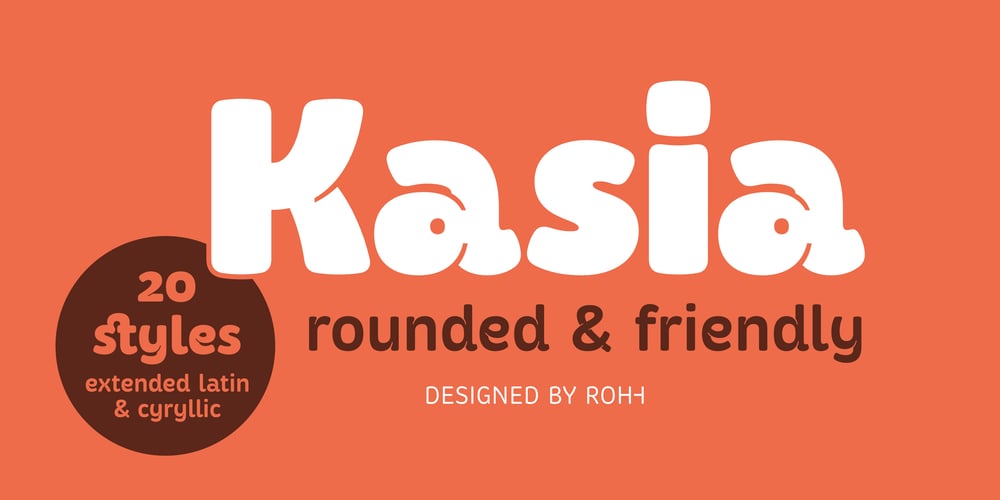
Kasia Font Family was designed by Roch Modrzejewski and published by ROHH. Kasia contains 20 styles and family package options. Kasia™ is a unique contemporary sans serif family, full of character and originality. It’s soft and rounded shapes give it warm, friendly, playful and dynamic feel. Special ink traps serve as ornamental details in bigger sizes, making Kasia™ a wonderful display font family. In small sizes, Kasia™ is very clean and legible. Its proportions and optimized kerning make it a versatile, friendly and organic text family, that features broad variety of OpenType features. Thanks to its various advantages Kasia™ is a great choice for all kinds of design work, both print and on-screen. It is a great choice for branding, logo design and advertising, as well as all sorts of paragraph text. Kasia™ consists of 20 fonts – 10 weights and their corresponding italics. It has extended language support including cyrillic and true italics, as well as OpenType features, such as small caps, case sensitive forms, ligatures, stylistic alternates, contextual alternates, lining, oldstyle, tabular, small cap and circled figures, slashed zero, fractions, superscript and subscript, ordinals, currencies and symbols.